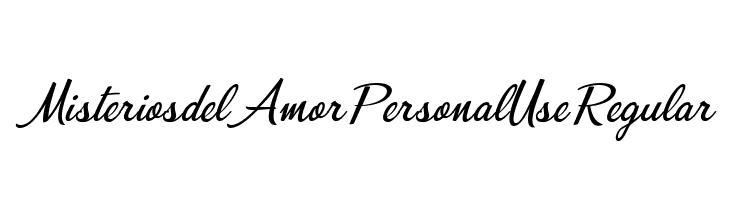
A dynamic and elegant script font with fluid, connected letterforms and a modern calligraphic style.
A graceful and flowing script font with elegant cursive characters.
An elegant script font with flowing, cursive letterforms and high contrast strokes.
An elegant script font with flowing, cursive letters and delicate swashes.